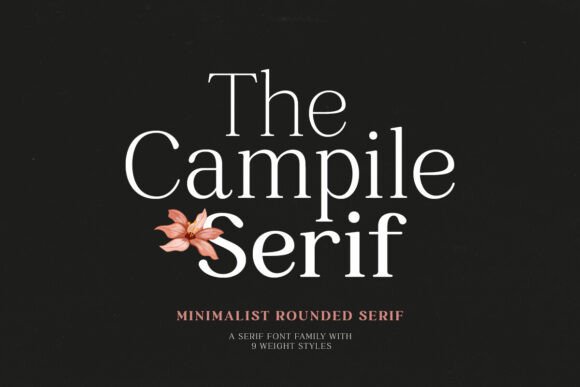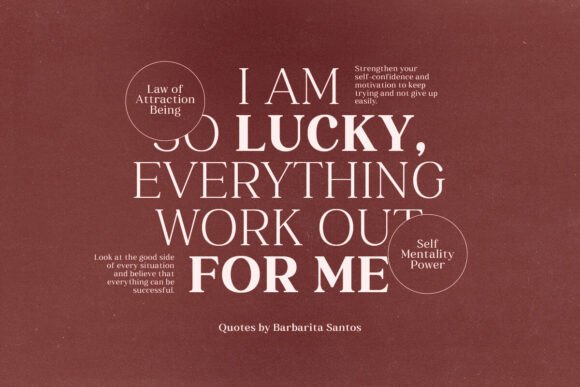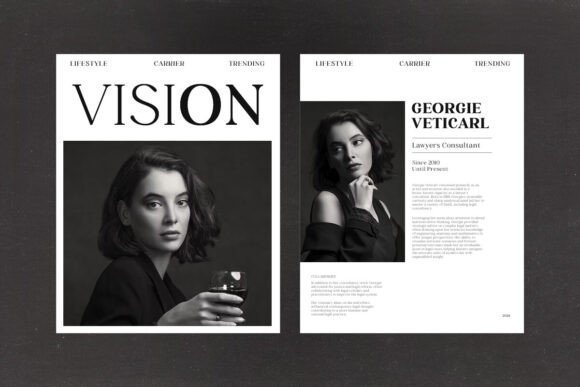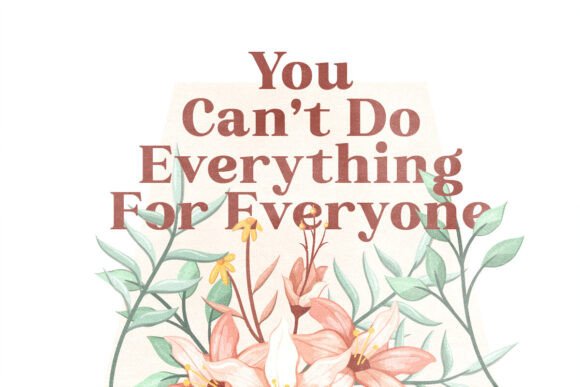
Campile Font: Elegant & Minimalist Serif for Modern Logo Design & Branding
About the Campile Font
The Campile Font is here to transform your projects with its distinctive character and style. Campile is a rounded serif font family with stylish and minimalist looks. With 9 weight including thin, extralight, light, regular, medium, semi bold, bold, extra bold, and black that you can choose that suitable for your project. You can use the light and regular for clean and minimalist looks or bold and extra bold for strong impressions. You also can combine the weight styles that will make your design more stunning. This font also support multi language.
Campile’s rounded serifs lend it a friendly yet sophisticated air, making it ideal for branding projects requiring a touch of elegance without being overly formal. It works exceptionally well in headlines, logos, and short-form text on packaging or posters. Avoid using it for extensive body copy or UI elements; its refined details might become distracting at smaller sizes.
Consider pairing Campile with a clean sans-serif like Open Sans for a balanced contrast, or a playful script font like Pacifico for a more whimsical feel, depending on your project’s needs. The heavier weights of Campile can be effective in bold statements, while the lighter weights offer a more subtle, understated elegance.
Its overall personality is best described as modern and approachable, making it suitable for brands aiming for a friendly, professional image. The versatility offered by its nine weights allows for a range of stylistic choices within a cohesive design system.
Campile Font Usage Examples
Campile Font Example